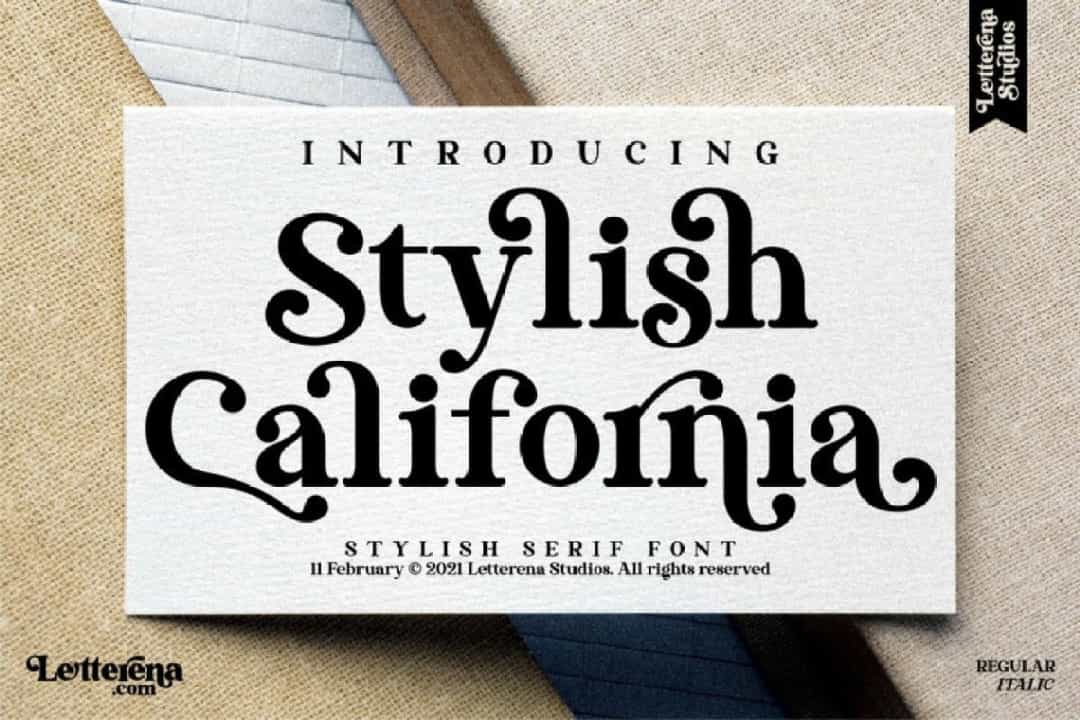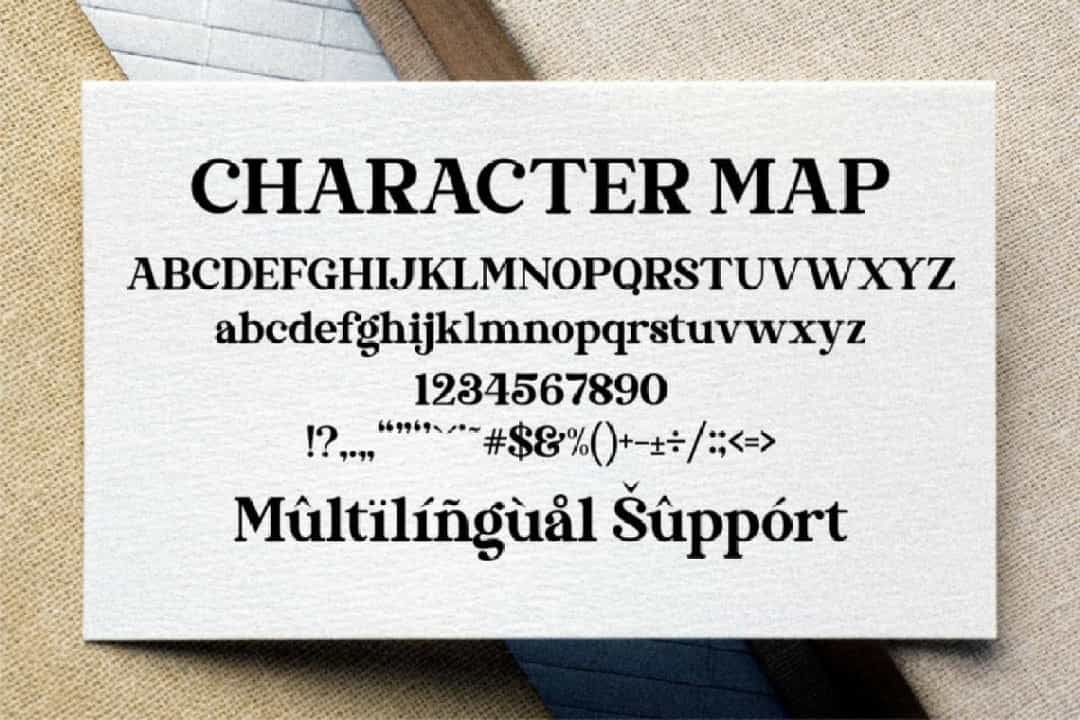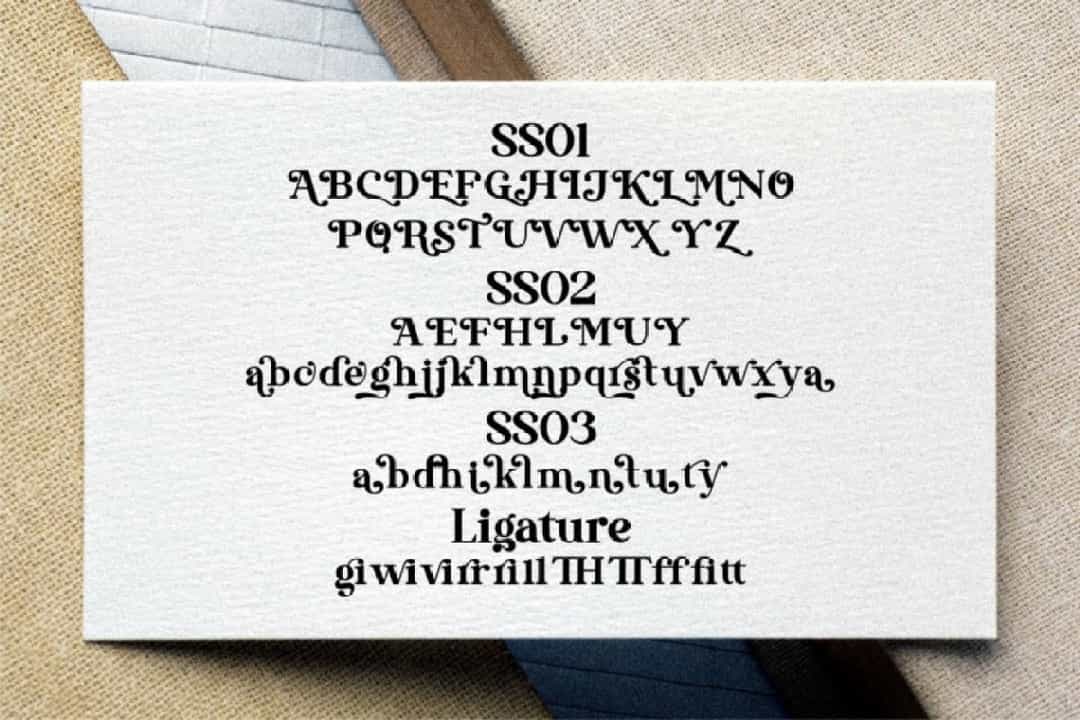
Stylish California is a elegant and classy serif font that is ideal for any project, including logos, branding projects, homeware designs, packaging for products like mugs and quotes shopping bags, posters, book covers and book covers, name cards invitation cards greeting cards, labels, photo watermark or other special events that need this beautiful serif font.